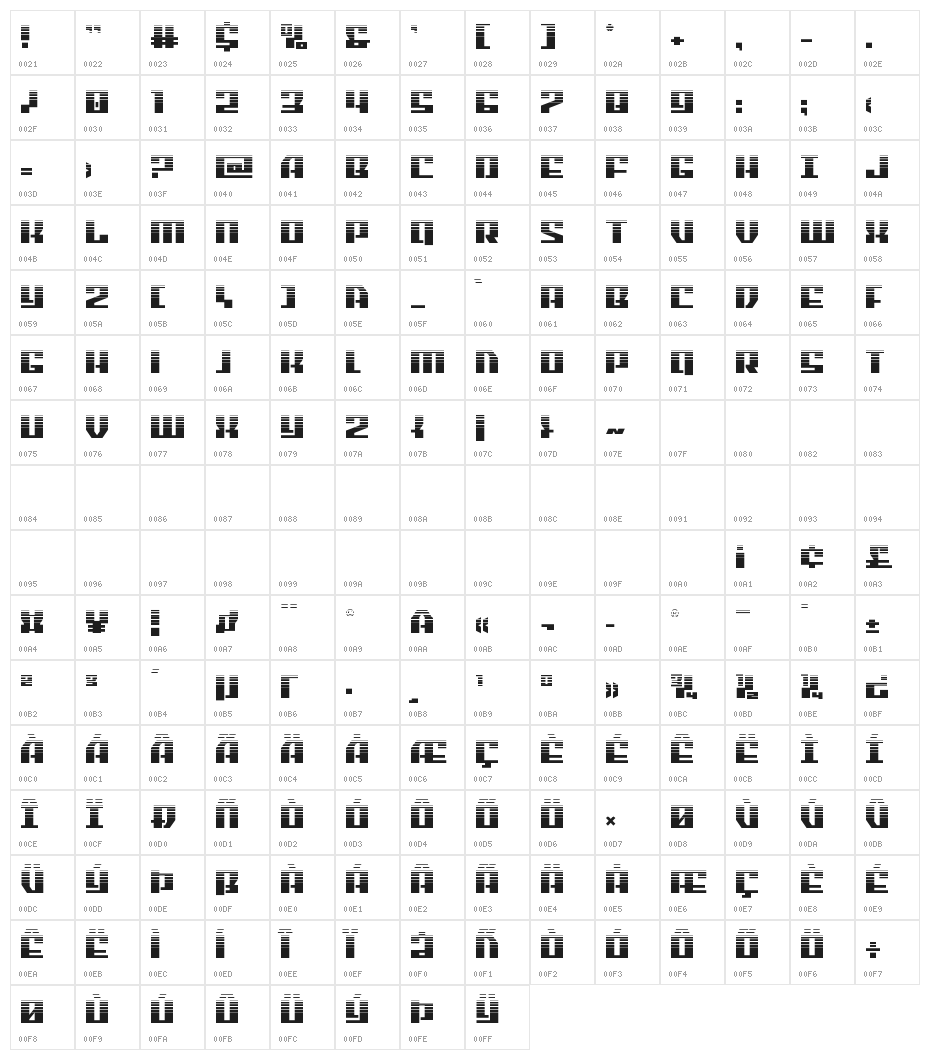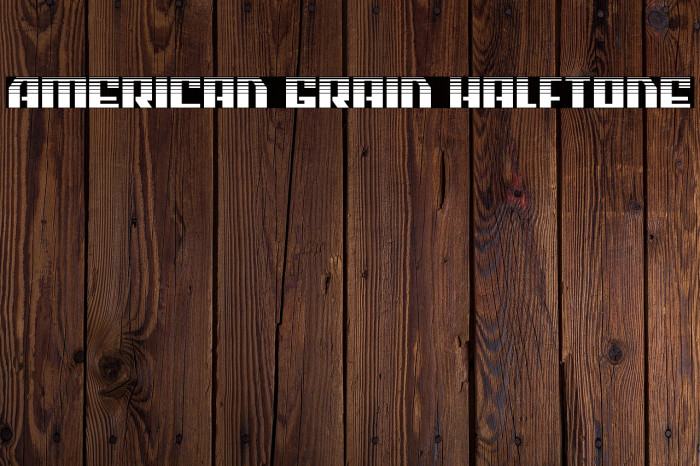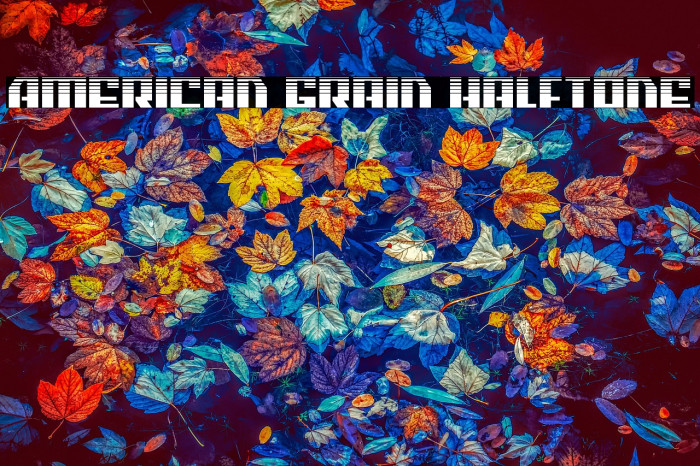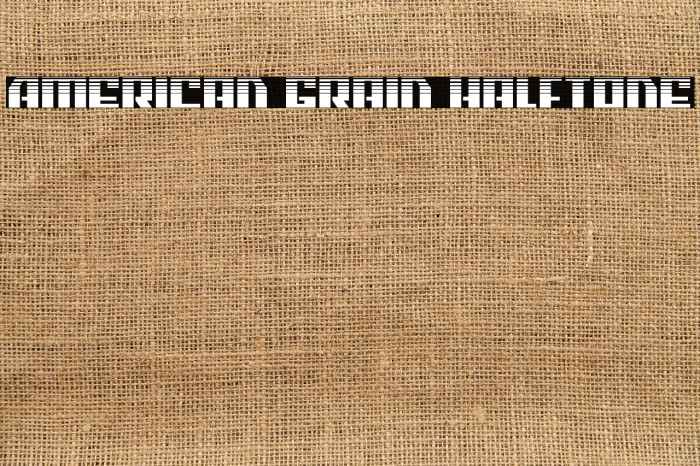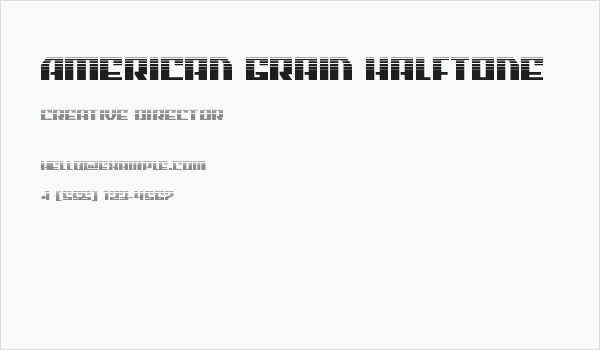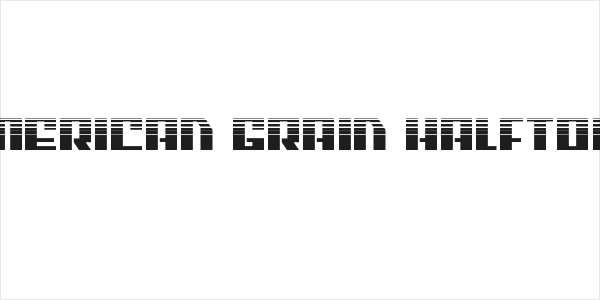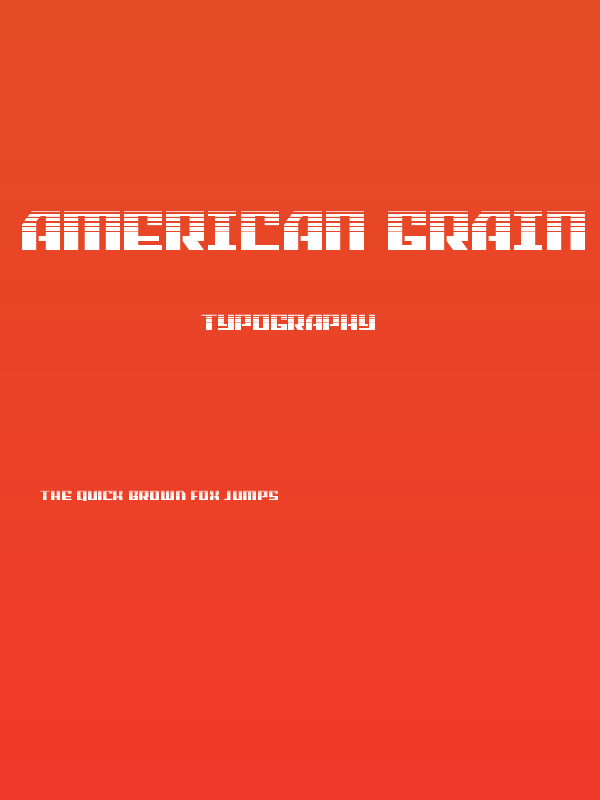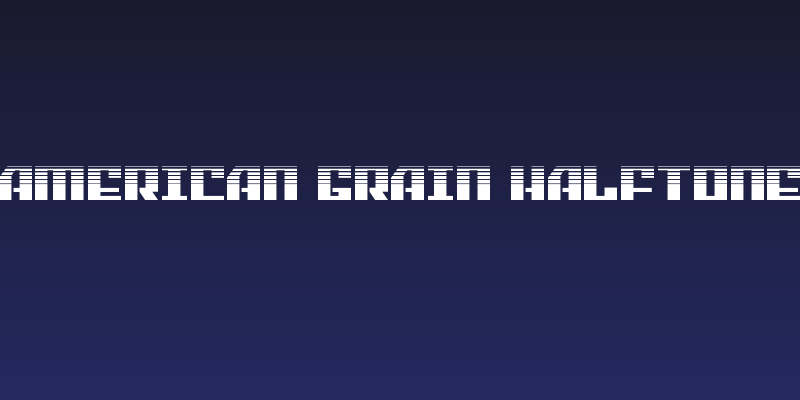
American Grain Halftone Font
American Grain Halftone Description
This font features a bold, geometric design with a distinct halftone pattern that creates a sense of movement and depth. The characters are constructed with horizontal lines that vary in thickness, giving them a dynamic and modern appearance. The uppercase and lowercase letters maintain a consistent style, with sharp angles and clean edges. The numerals and special characters are equally bold and follow the same halftone pattern, ensuring uniformity across all elements. This font's unique style makes it stand out, offering a visually striking option for creative projects.
| Proposed Projects | Ideal for posters, album covers, branding, and any project requiring a modern, eye-catching typeface. |